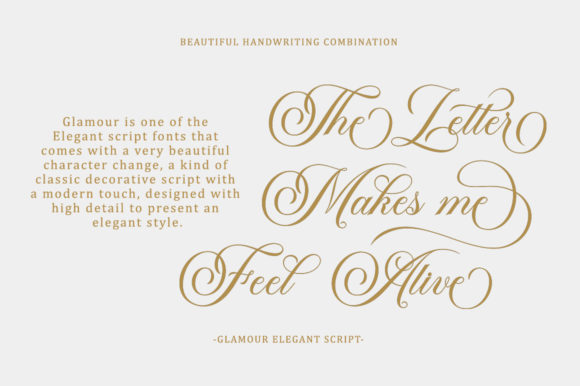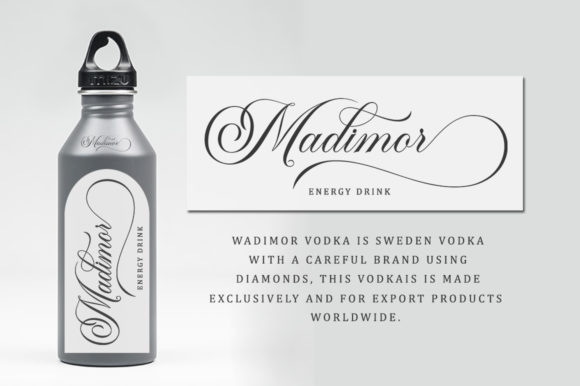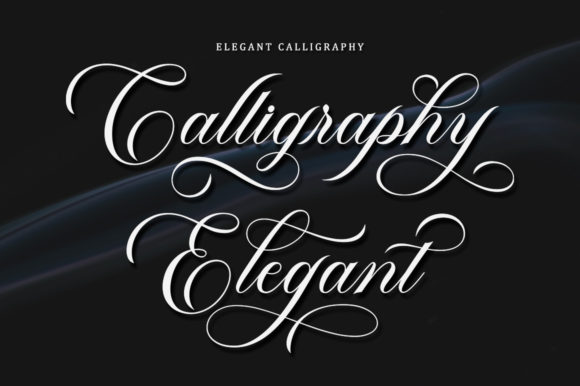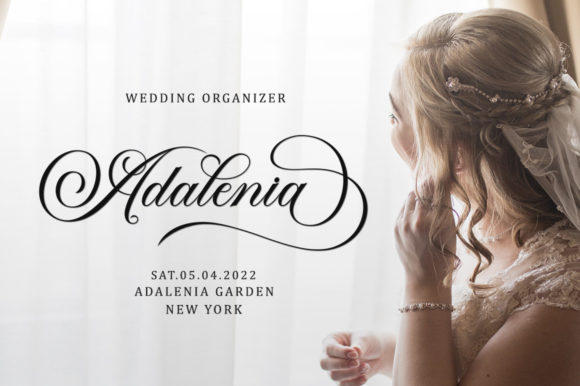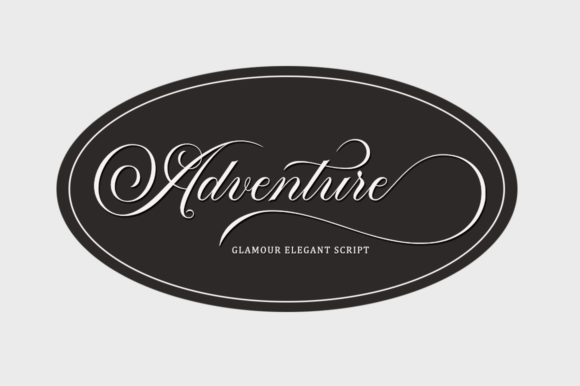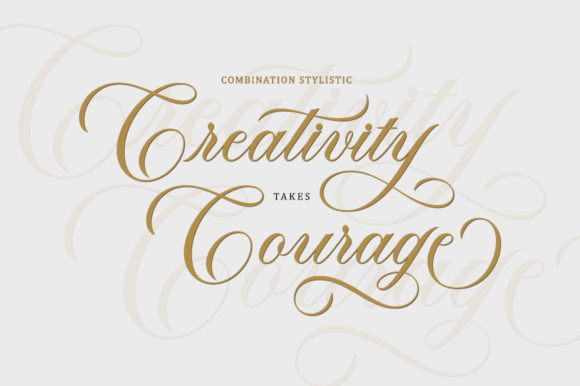
Glamour Font: Elevate Your Design with Luxury and Elegance
In the world of design, typography plays a crucial role in conveying the tone and aesthetic of a project. When it comes to creating luxurious and high-end designs, the right font can make all the difference. This is where Glamour Font comes in – a distinct and fashionable script font that is sure to add a touch of sophistication and glamour to any design project.
What is Glamour Font?
Glamour Font is a beautifully crafted script font that exudes luxury and elegance. Its unique and stylish design makes it perfect for a wide range of design projects, from branding and advertising to packaging and digital media. With its flowing lines and intricate details, Glamour Font is sure to capture the attention of your audience and leave a lasting impression.
Key Features of Glamour Font
So, what sets Glamour Font apart from other fonts? Here are some of its key features:
- Distinct and Fashionable Design: Glamour Font has a unique and stylish design that is sure to add a touch of luxury and sophistication to any project.
- Wide Range of Applications: Whether you’re working on a branding project, creating a website, or designing a brochure, Glamour Font is versatile enough to be used in a wide range of applications.
Benefits of Using Glamour Font
So, why should you choose Glamour Font for your design projects? Here are just a few benefits of using this luxurious script font:
- Adds a Touch of Luxury: Glamour Font is designed to add a touch of luxury and sophistication to any project. Its elegant design and flowing lines make it perfect for high-end branding and advertising projects.
- Enhances Readability: Despite its ornate design, Glamour Font is highly readable, making it perfect for use in body text as well as headlines.
- Versatile and Flexible: Glamour Font can be used in a wide range of design projects, from digital media to print materials.
How to Use Glamour Font in Your Design Projects
Using Glamour Font in your design projects is simple. Here are a few tips to get you started:
- Pair it with Other Fonts: Glamour Font pairs well with a wide range of other fonts, from sans-serif fonts like Arial and Helvetica to serif fonts like Times New Roman.
- Experiment with Different Sizes and Colors: Glamour Font looks great in a variety of sizes and colors. Experiment with different sizes and colors to find the perfect combination for your project.
- Use it to Create Headlines and Titles: Glamour Font is perfect for creating headlines and titles that are sure to capture the attention of your audience.
In conclusion, Glamour Font is a luxurious and elegant script font that is sure to add a touch of sophistication and glamour to any design project. With its unique and stylish design, PUA encoding, and wide range of applications, Glamour Font is the perfect choice for designers and crafters looking to create high-end designs. Whether you’re working on a branding project, creating a website, or designing a brochure, Glamour Font is sure to help you achieve your design goals.